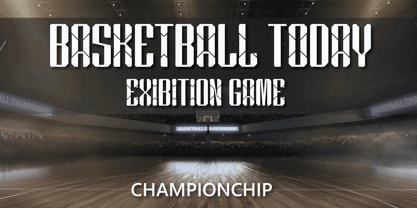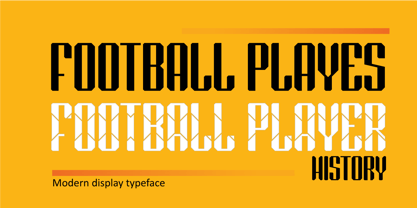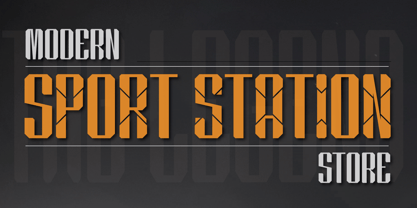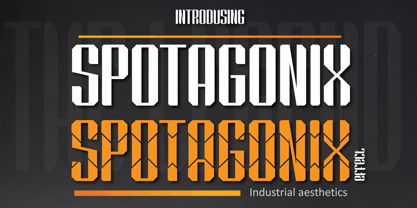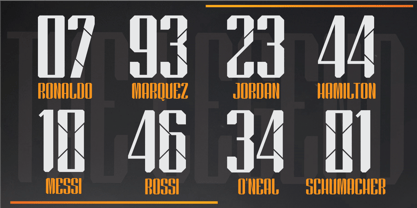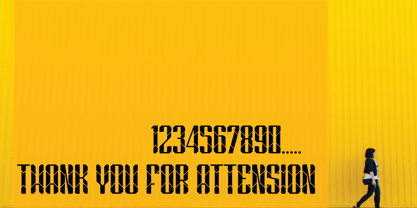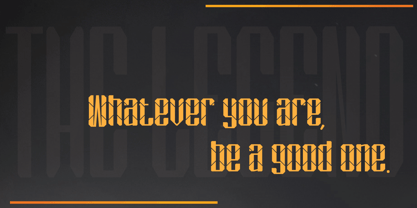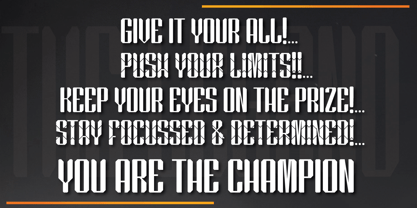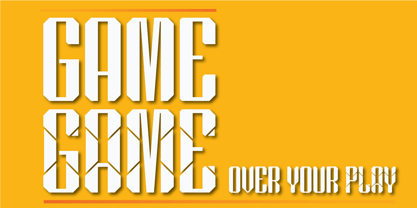
Spotagonix
by Herry92
The Spotagonix Font Family was designed by Herry Herry and published by Herry92. Spotagonix contains 2 styles and family package options. More about this family
This font is a modern display typeface with sporty and industrial aesthetics, emphasizing energy, power, and professionalism. With its geometric structure and sharp cuts, it’s ideal for creating a visual identity that feels dynamic, bold, and performance-driven. This type of font is typically used for: Sport, fitness, branding, Logos, visual identities,promotional posters, technology and active lifestyle products.
Designers: Herry Herry
Foundry: Herry92